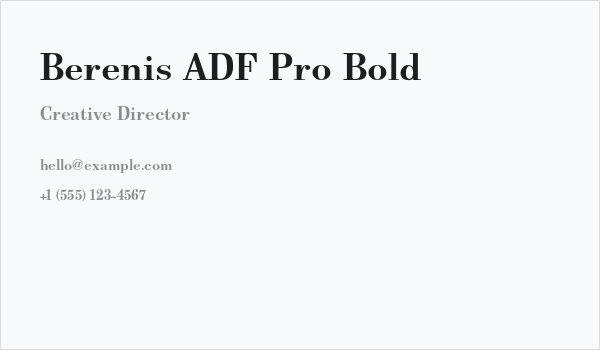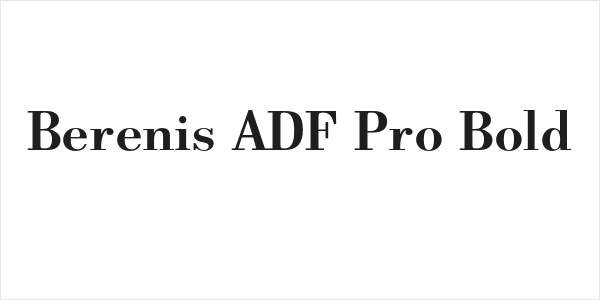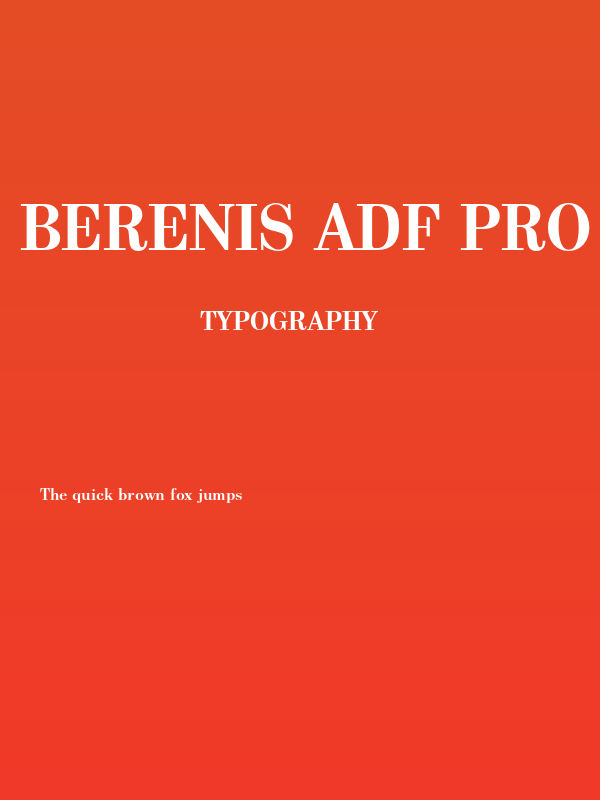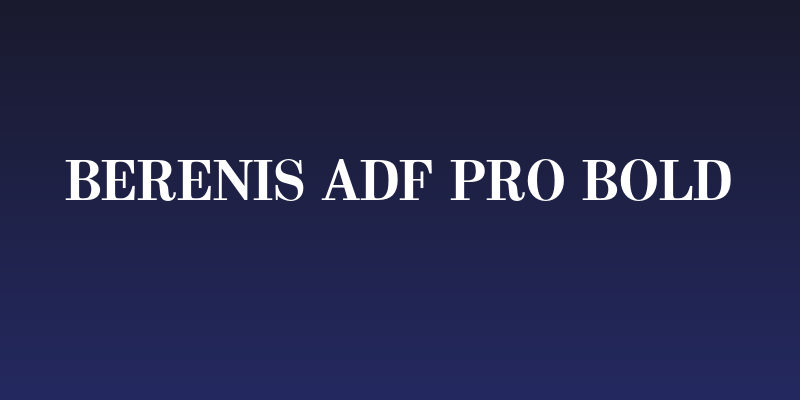
Berenis ADF Pro Bold Font
Berenis ADF Pro Bold Description
This font is a bold serif typeface characterized by its strong, authoritative presence. The uppercase letters are well-defined with a classic serif structure, providing a sense of tradition and reliability. The lowercase letters maintain a consistent style, offering a harmonious balance between elegance and readability. Numbers are robust and clear, making them suitable for various applications. Special characters are designed with precision, ensuring they complement the overall aesthetic. The font's bold weight and high contrast in stroke thickness enhance its legibility, making it ideal for impactful headlines and titles.
| Proposed Projects | Ideal for book covers, editorial headlines, branding materials, and formal invitations. |